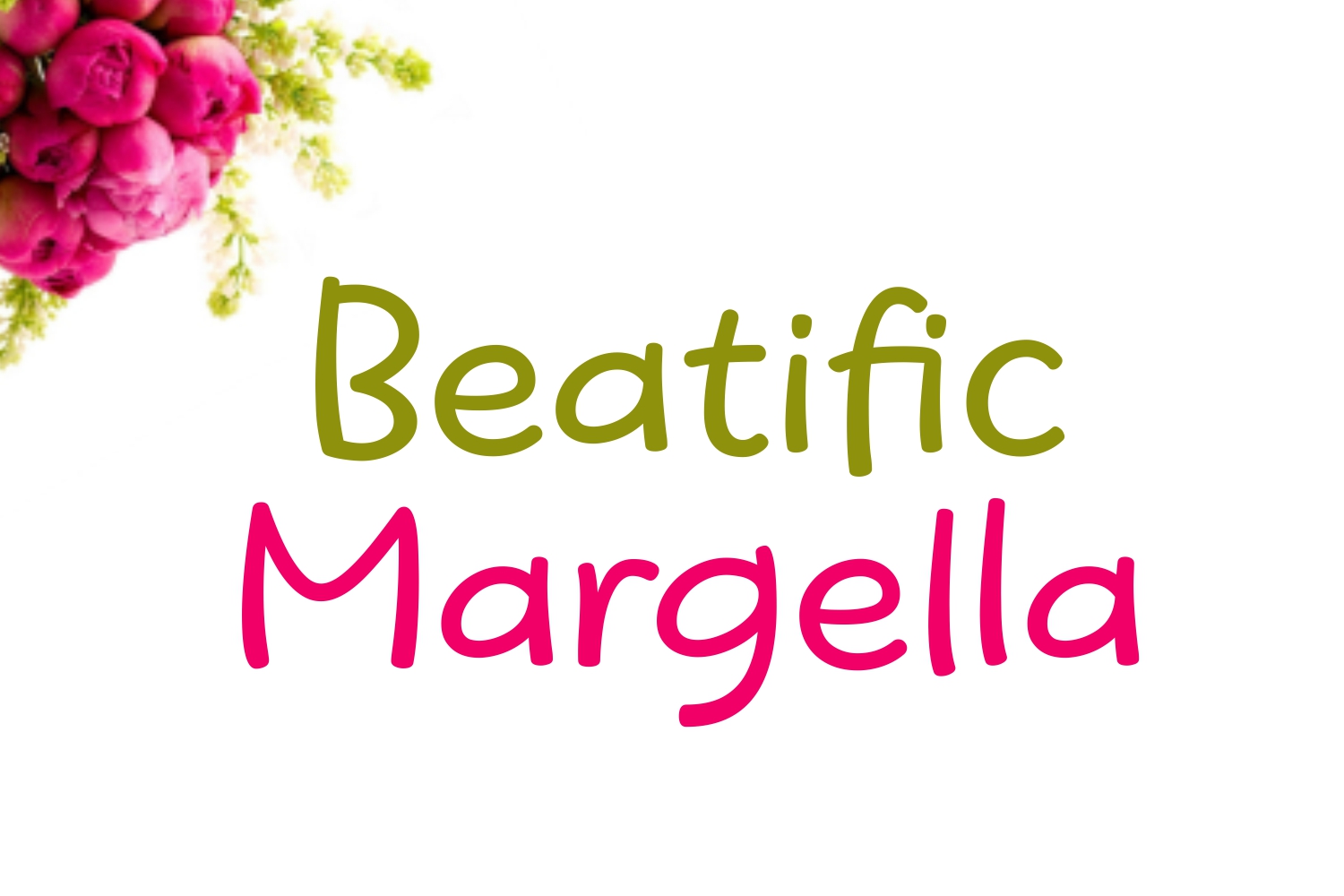
Beatific Margella Font
About Beatific Margella Font
Beatific Margella is a cutesy handwritten font, ideal for a wide range of designs. This font is highly legible and can add a touch of warmth and friendliness to your designs.